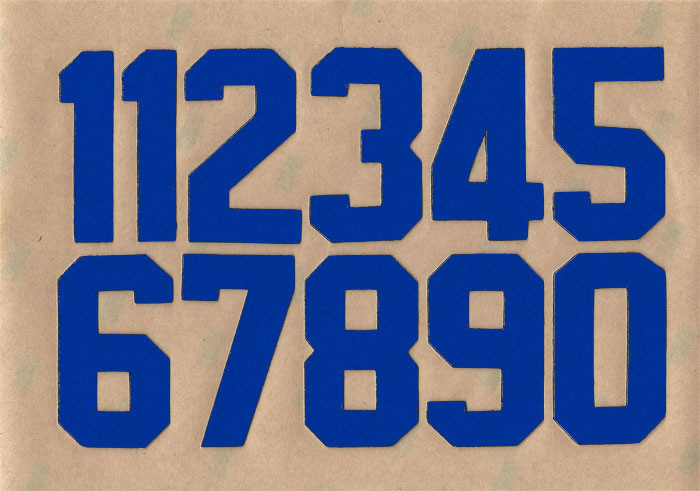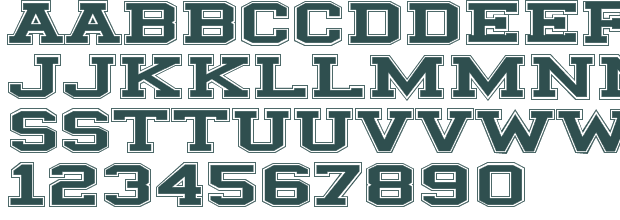
Block Numbers Free Font. Bad coma is a distorted font made by imagex. So, you can call them your own version of block numbers.
Toy block maestro font is published by gomarice font. It comes with uppercase and lowercase characters, alternates, numbers, and punctuation. We have 855 free blocky fonts to offer for direct downloading · 1001 fonts is your favorite site for free fonts since 2001 855 free blocky fonts · 1001 fonts font categories
Check it for free with typograph. Bad coma is a distorted font made by imagex. Number fonts is a style that is dedicated to just the number letters.
This typeface is one of the totally free block fonts. It’s a condensed font ideal for logotypes, invitations, packaging, labeling, and other advertising purposes. Toy block maestro font is published by gomarice font.
It Comes With Uppercase And Lowercase Characters, Alternates, Numbers, And Punctuation.
With that, lego can already be said as block numbers. Download the blockletter font by sharkshock. Kage serif font is another modern and versatile block font that contains serif, uppercase, lowercase, as well as ligatures and numbers.
You can download it for any os like mac, ubuntu, and windows also. College block is a modified version of blockletter tall featuring many new glyphs and of course serifs reminiscent of that used on collegiate sweatshirts. Use it for your own tees or campus project.
48 professional varsity number block fonts to download. Digital dust is a free font made by chequered ink which can be downloaded free for the personal use. If you want to add a touch of vintage nostalgia to your text, look no further than rosterine.